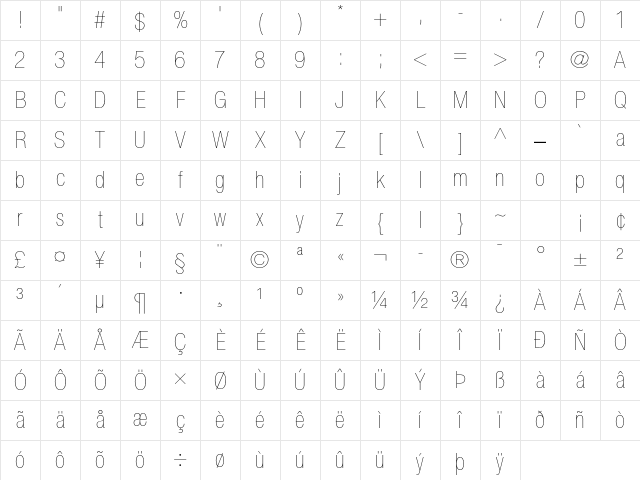
Helvetica Neue LT Std 27 Ultra Light Condensed
Style: 27 Ultra Light Condensed
Designer: Linotype Staff
Helvetica Neue LT Std 27 Ultra Light Condensed Font Preview
Helvetica Neue LT Std 27 Ultra Light Condensed Uppercase Preview
Helvetica Neue LT Std 27 Ultra Light Condensed Lowercase Preview
Helvetica Neue LT Std 27 Ultra Light Condensed Numeric Preview
Complete Helvetica Neue LT Std 27 Ultra Light Condensed glyph index. Displaying only characters natively supported by Helvetica Neue LT Std 27 Ultra Light Condensed font.
Design Context for Helvetica Neue LT Std
Helvetica Neue LT Std is a composed and adaptable typeface that performs quietly and consistently across a wide range of design contexts. Its slender proportions lend an understated elegance to any composition. Its narrow stance lets it pack a punch even in space-constrained designs.